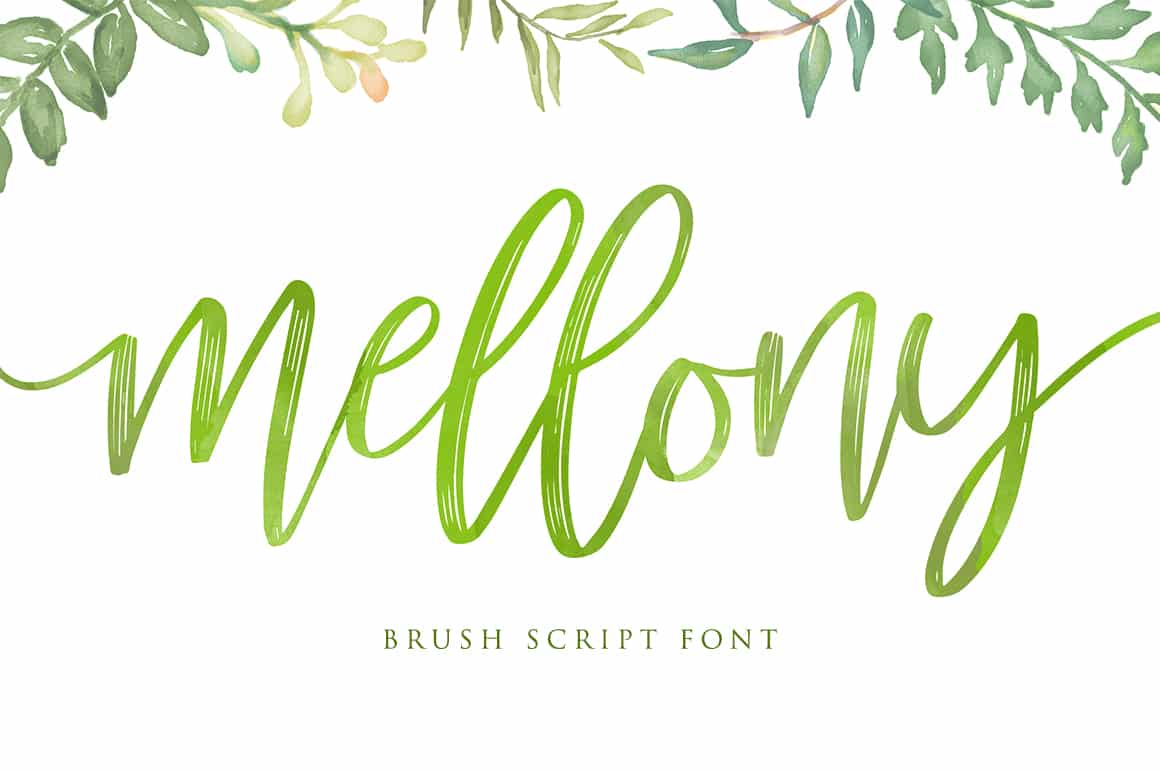
Incredible Free Brush Script Font References
Forever brush script by pedro teixeira foundry. Good brush à € by sarah robbaniyyah. Here are the full collection of free and premium brush script typefaces and fonts.
If You’re Looking For A Font To Add A Unique Personality To Your Designs, This Font Is For You.
Julietta madelyne is a delicate brush script font. The handwritten combined with brush font will make your design project more attractive. Web use of brush script fonts has gained a lot of popularity as they look good on any design.
Here Are The Full Collection Of Free And Premium Brush Script Typefaces And Fonts.
Web download free script fonts instantly. Web this heavy, informal script looks as though it was written with a brush because its lowercase letters join together. Web 40+ best brush script fonts for graphic design, branding & logos (free & premium) 1.